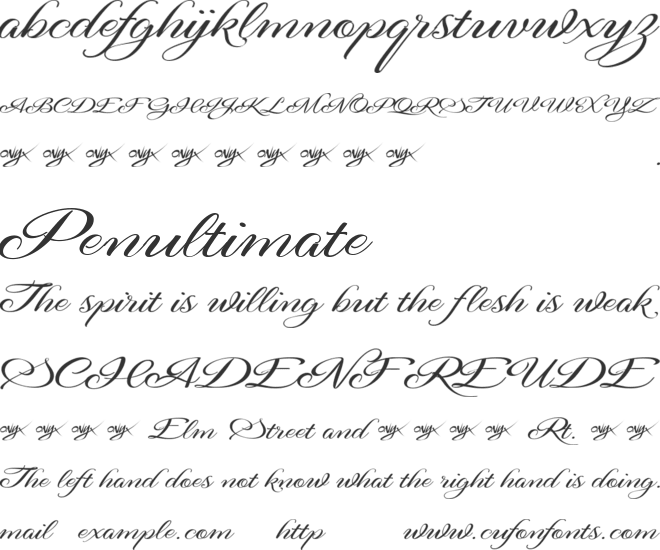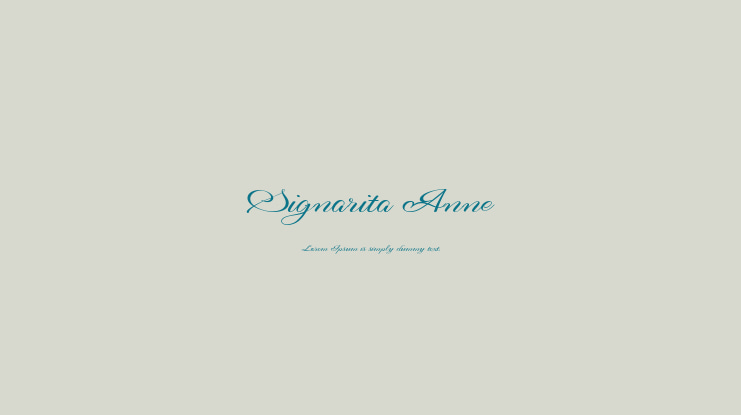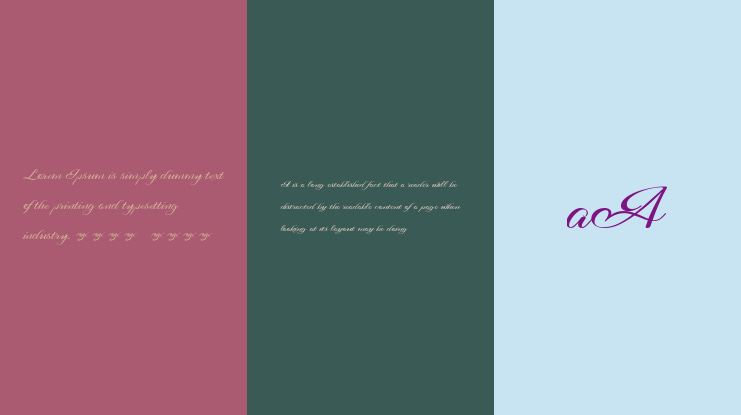
Signarita Anne Font
Signarita Anne is a bold and sweet handwritten font that will turn any design idea into a true standout. Get inspired by its unique charm!